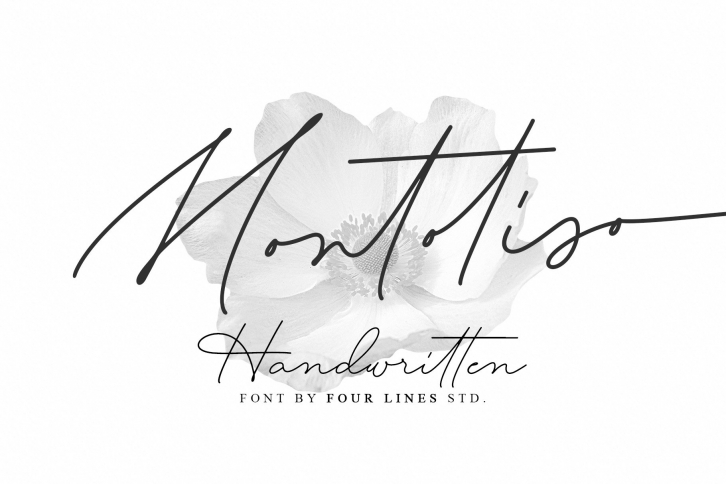
Montoliso is a trendy and unique font with an authentic style. It was designed by Fourlines Design and it's a great choice for creative people who need such a font. It was released on September 7, 2022 and the file size is 17.56 MB. Montoliso will add an organic vibe to any design idea!